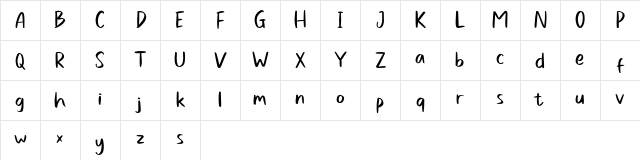
Complete Sweet Buttermilk Free Sans Regular glyph index. Displaying only characters natively supported by Sweet Buttermilk Free Sans Regular font.
Sweet Buttermilk Free Sans is a composed and adaptable typeface that performs quietly and consistently across a wide range of design contexts.